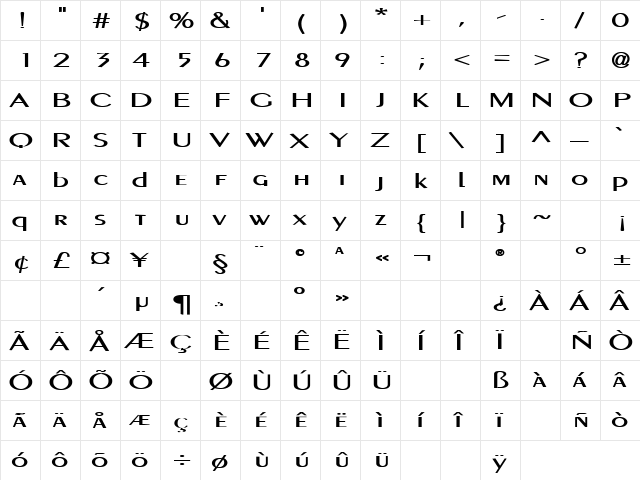
Custard Pie 16 Bold
Design Context for Custard Pie 16 Typeface
Custard Pie 16 takes a measured approach to typography — its balanced proportions and neutral character make it a reliable workhorse for both digital and print work. The heavy weight commands attention and anchors typographic hierarchies.